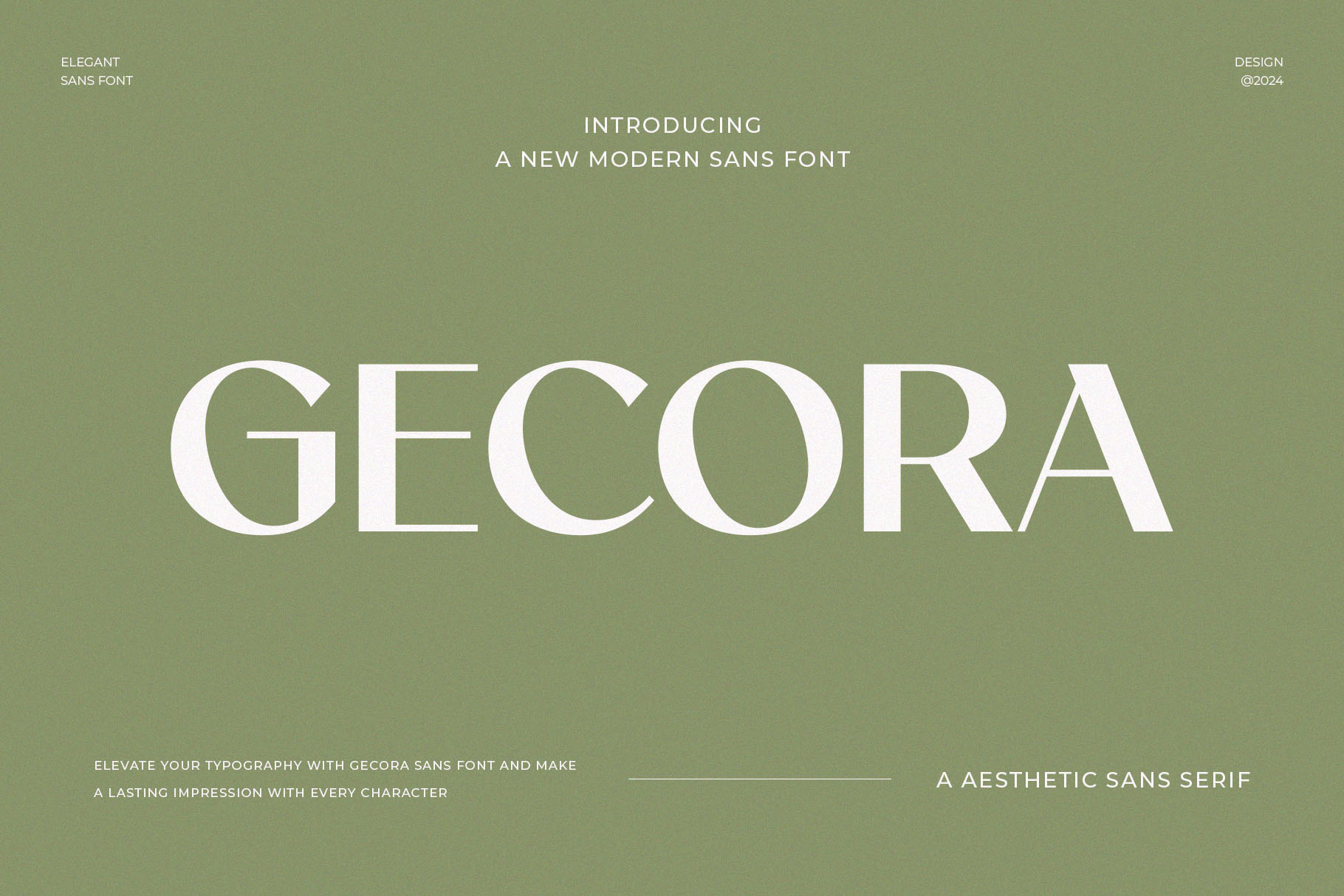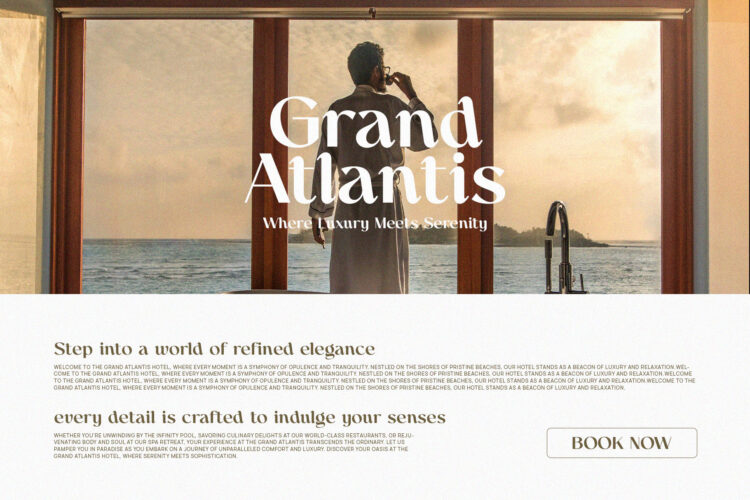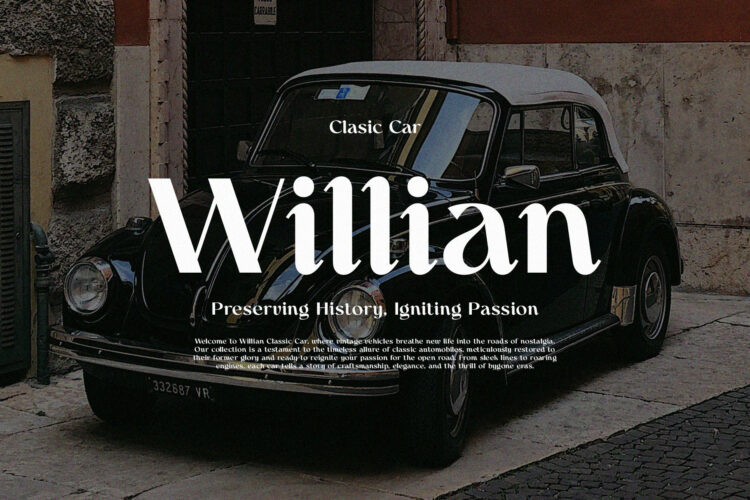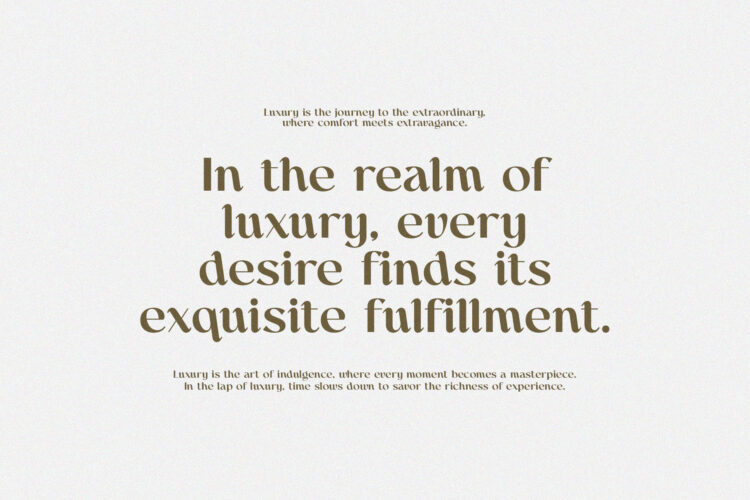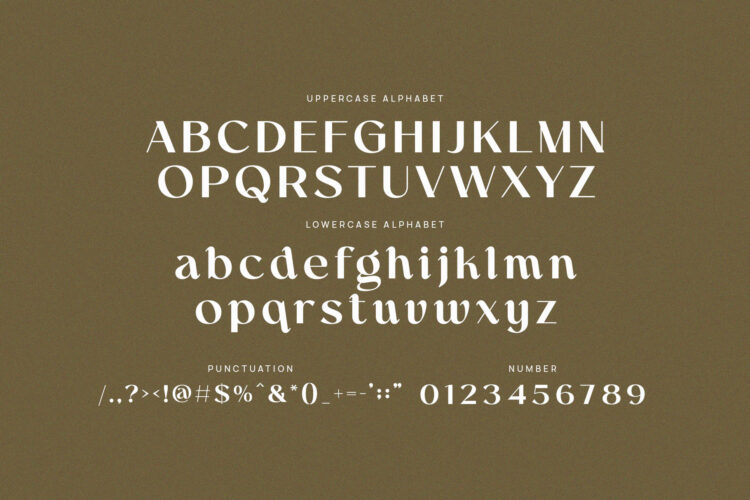
Introducing Gecora – Elegant Sans Serif.
Gecora is a modern and simple font, best used as a display for headings, logos, branding, magazines, product packaging and invitations.